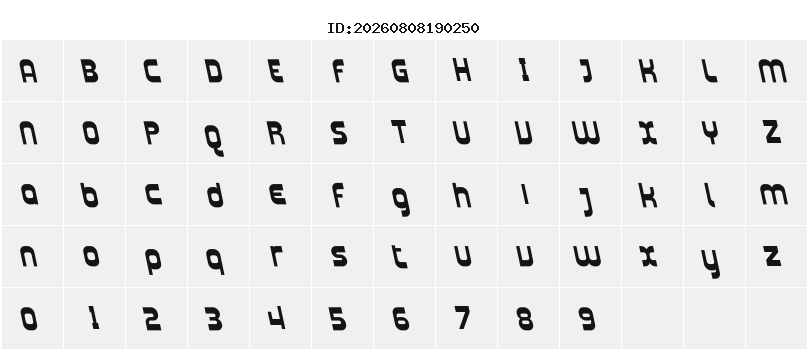
Plasmatica Rev Preview
• Font Name: Plasmatica Rev
• Designer: Derek Vogelpohl
About Plasmatica Rev.ttf
Plasmatica Rev.ttf is a modern, elegant sans-serif font designed for ultimate readability and visual harmony. Perfect for branding, headlines, web design, and print materials.